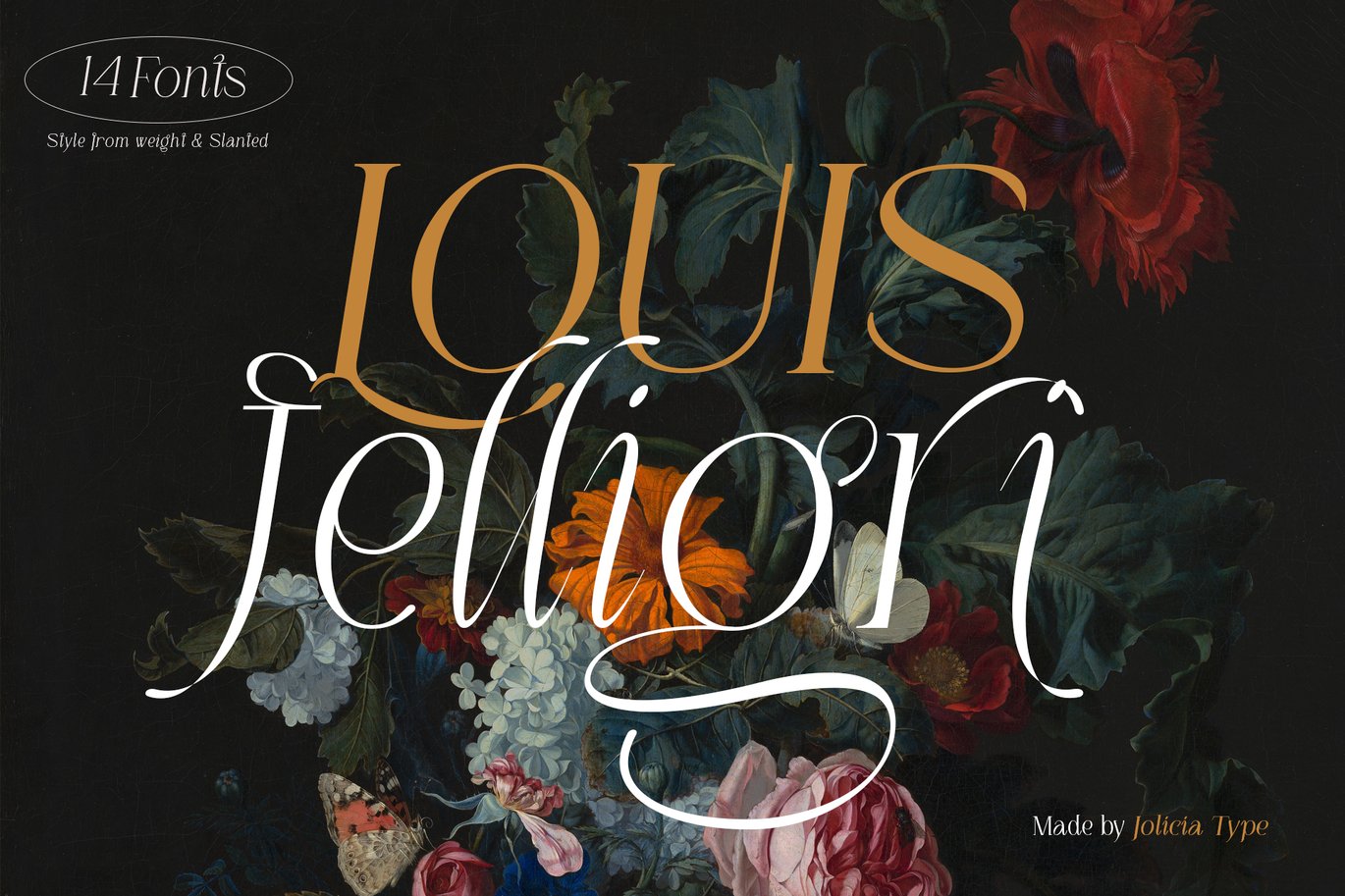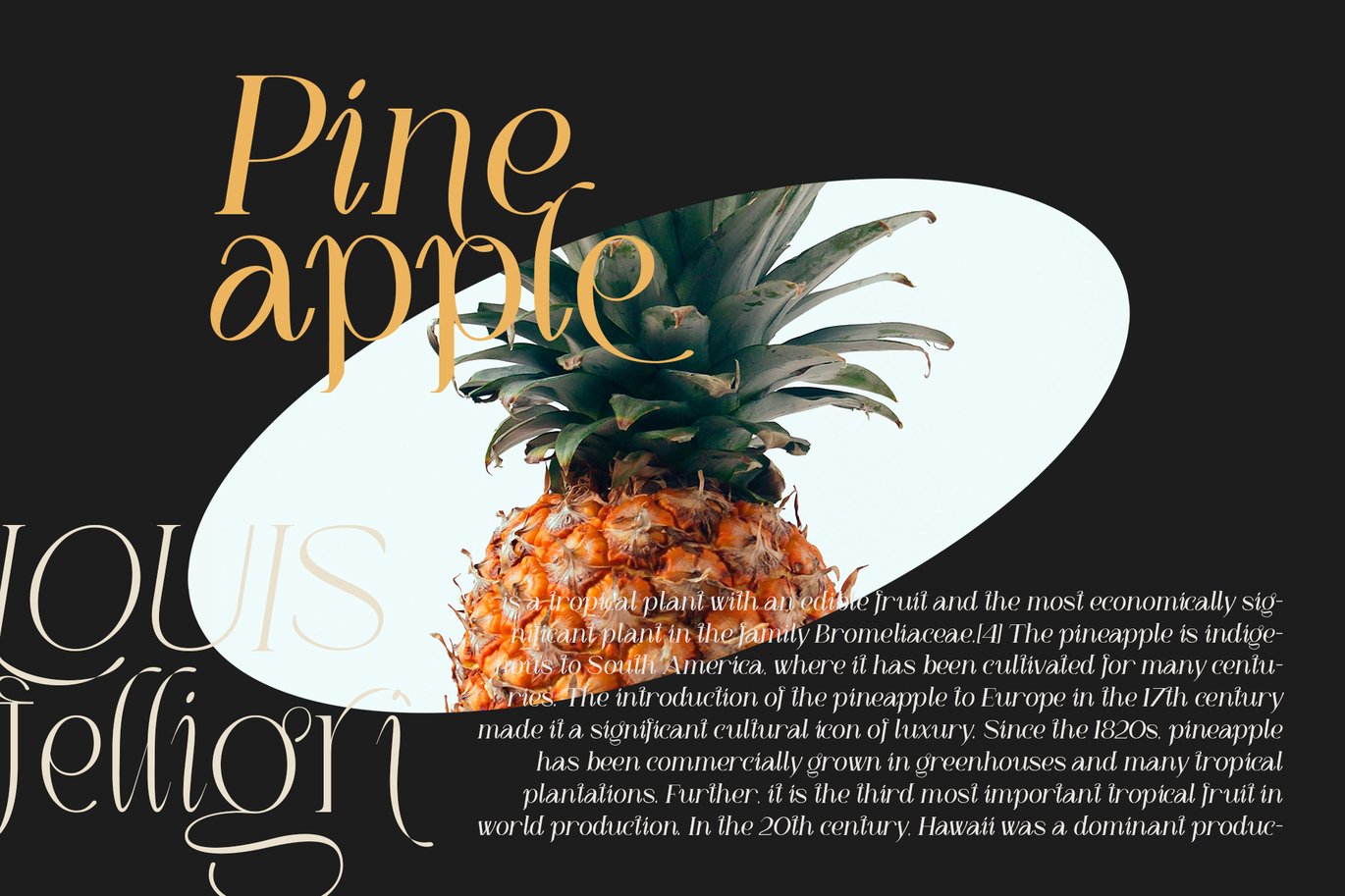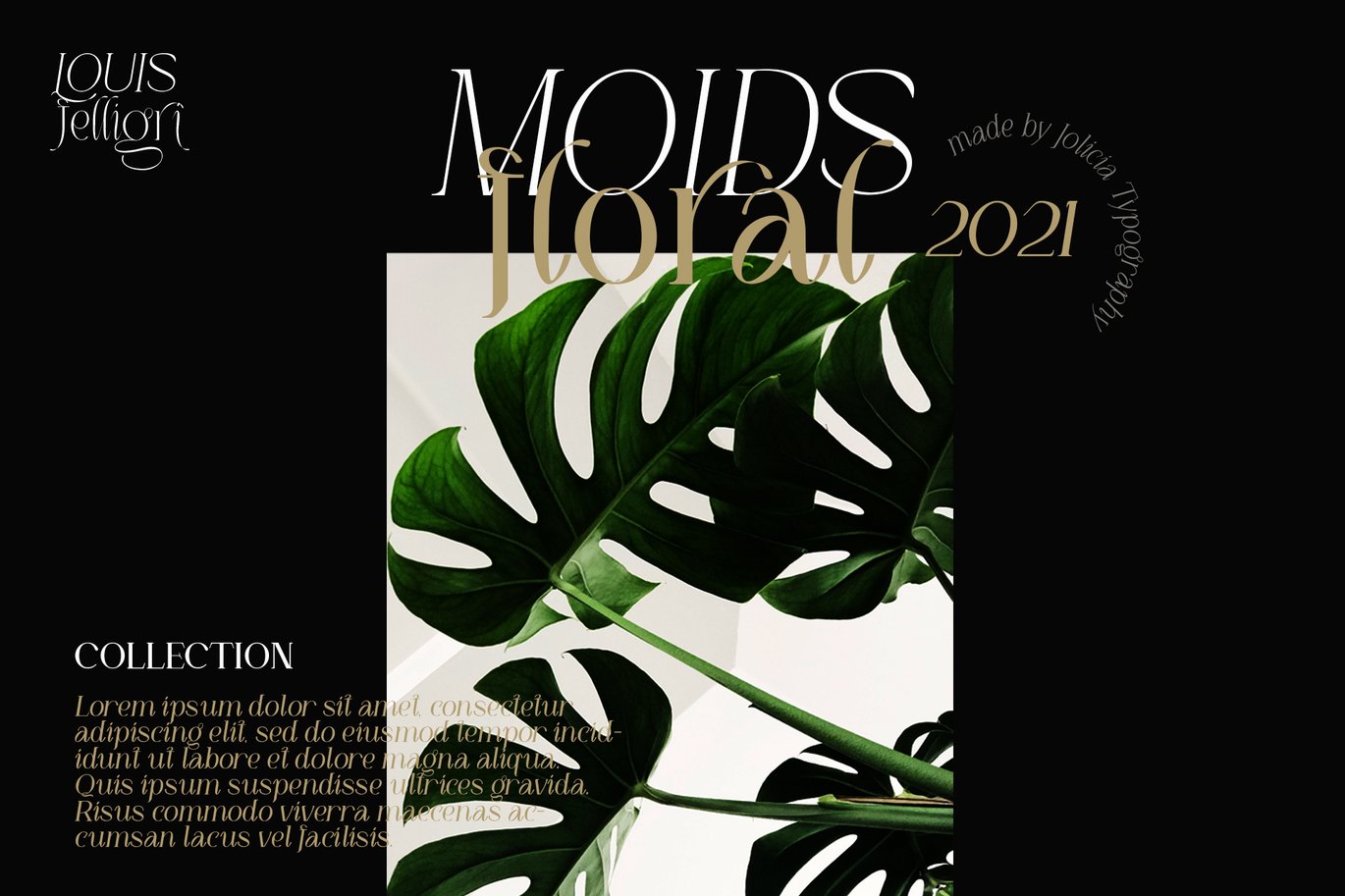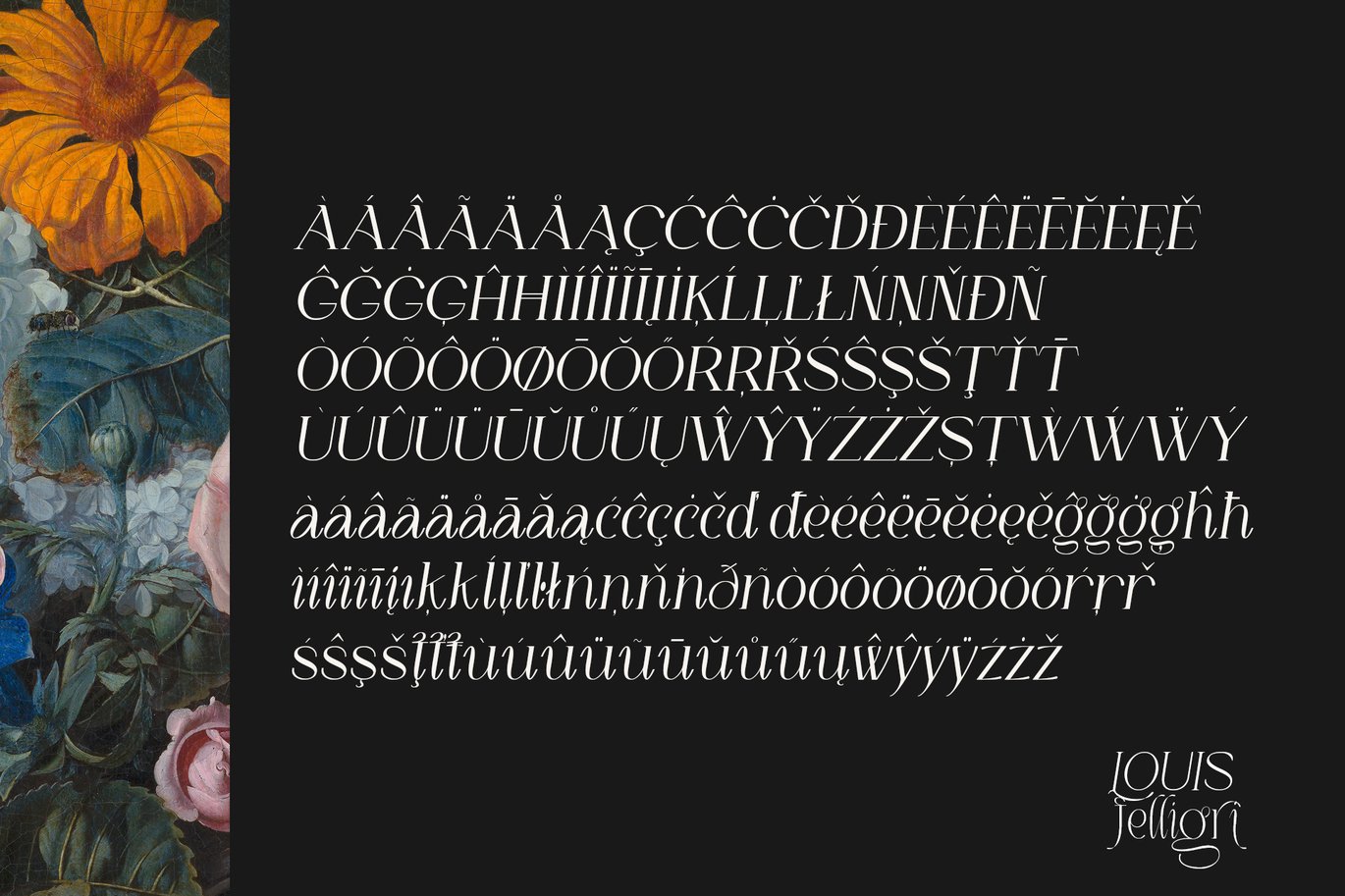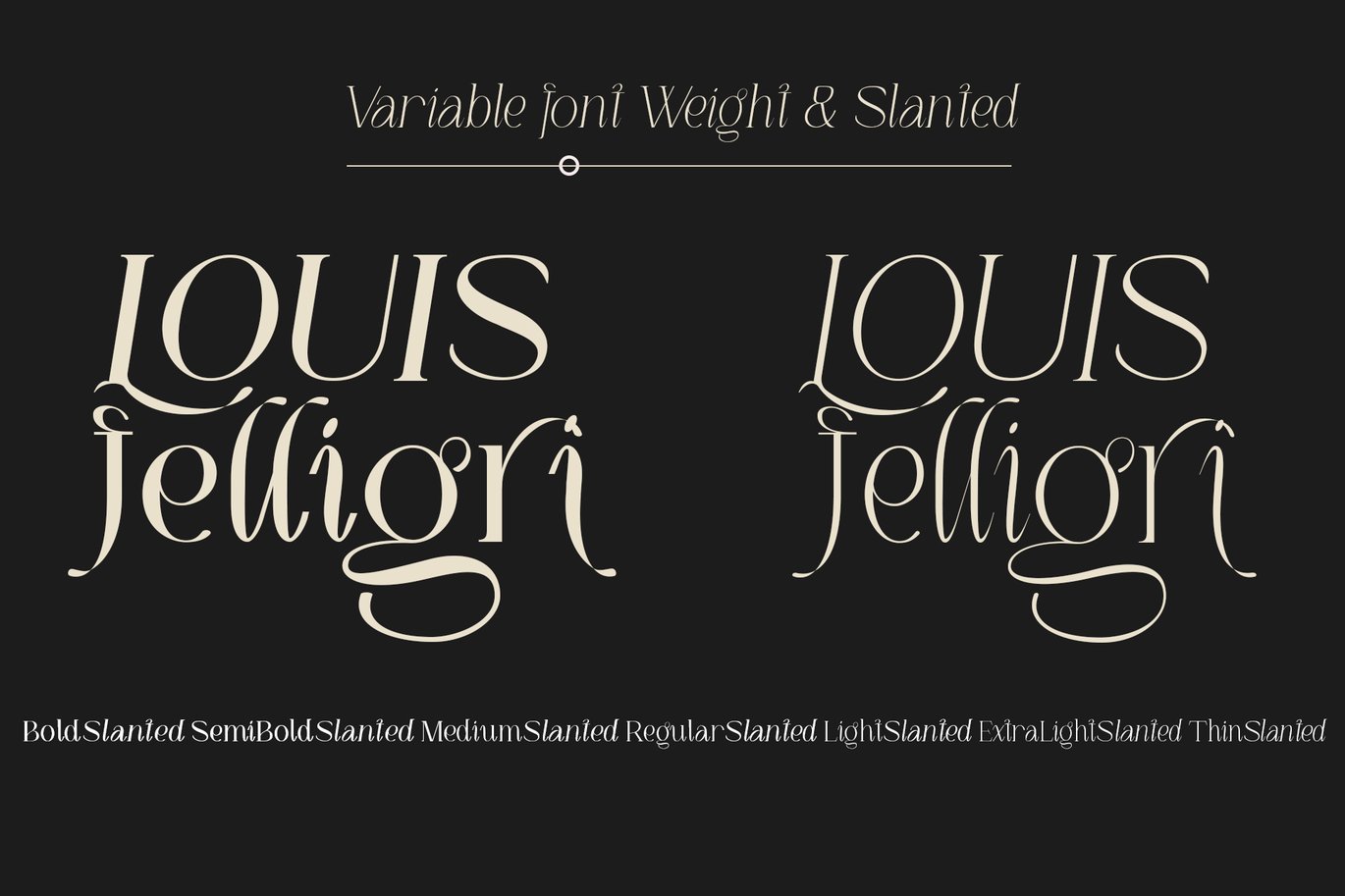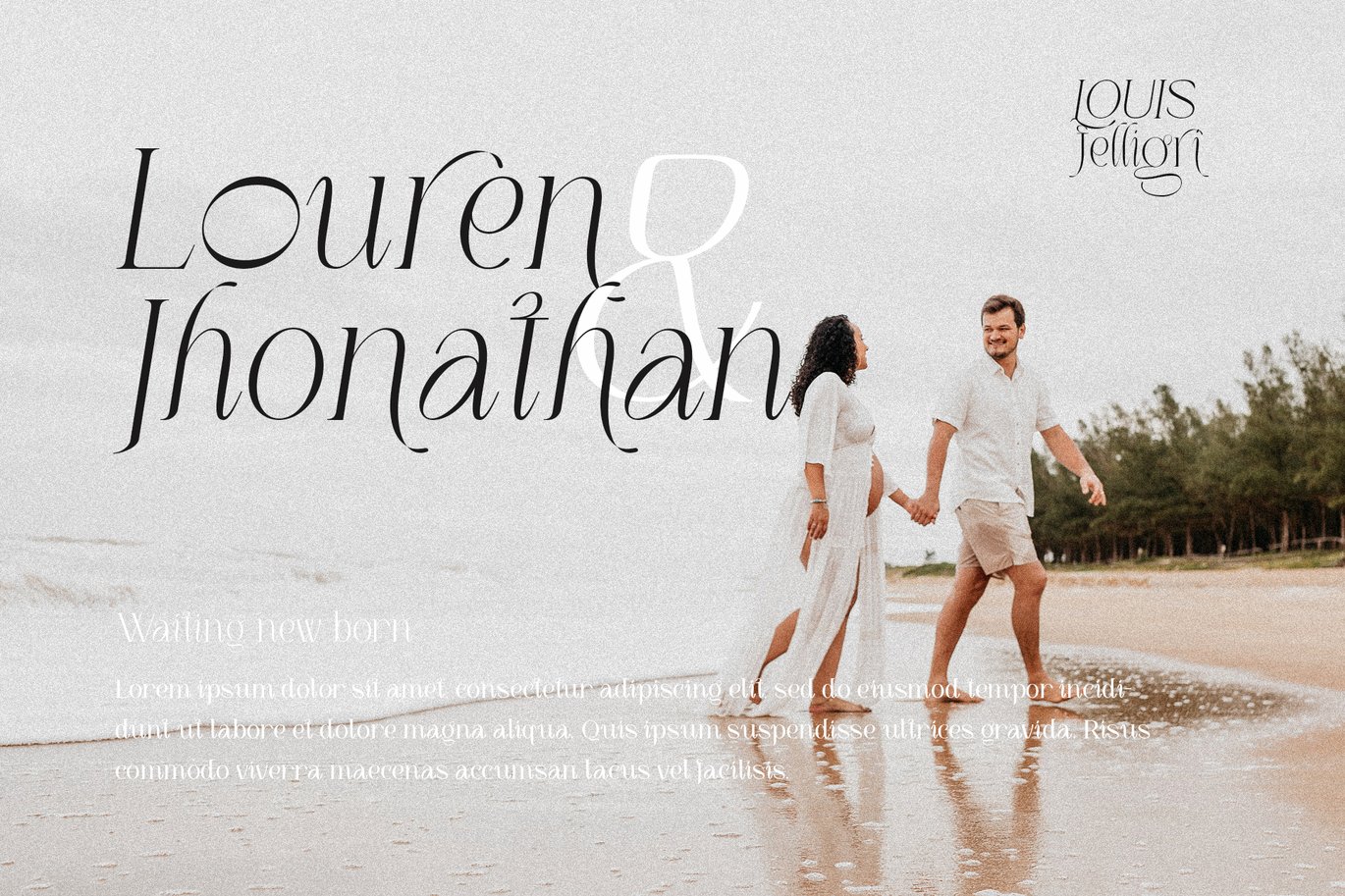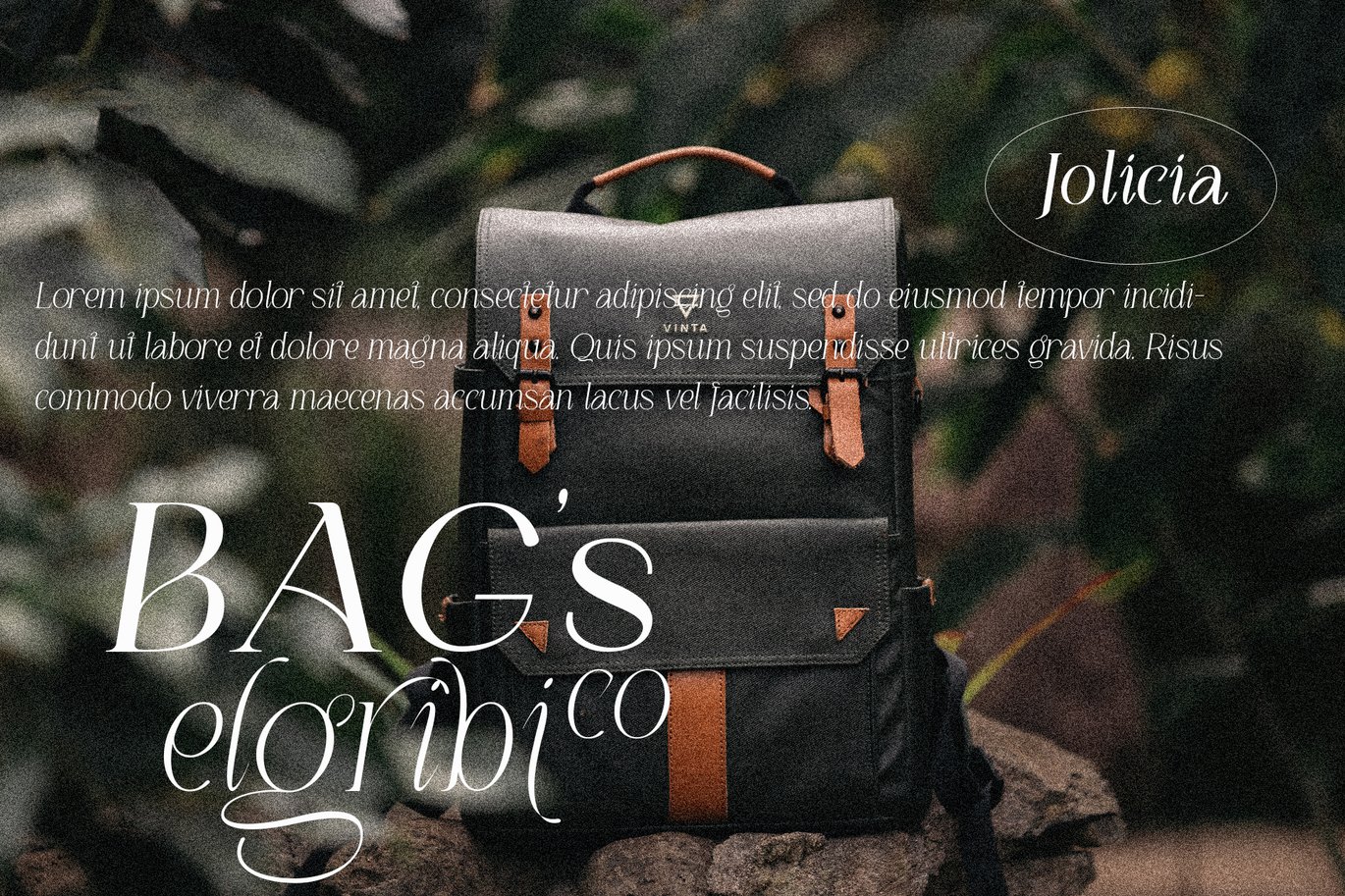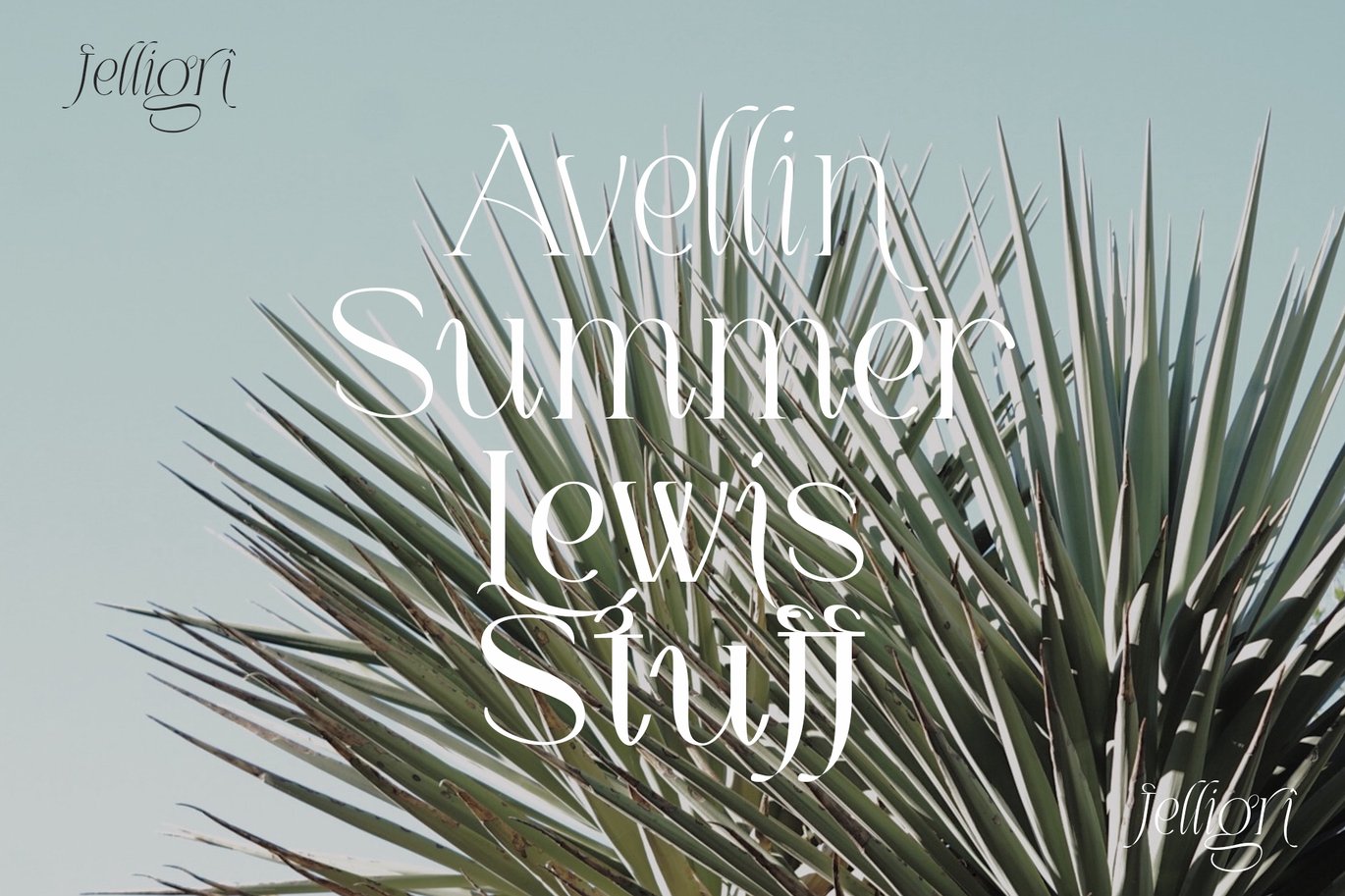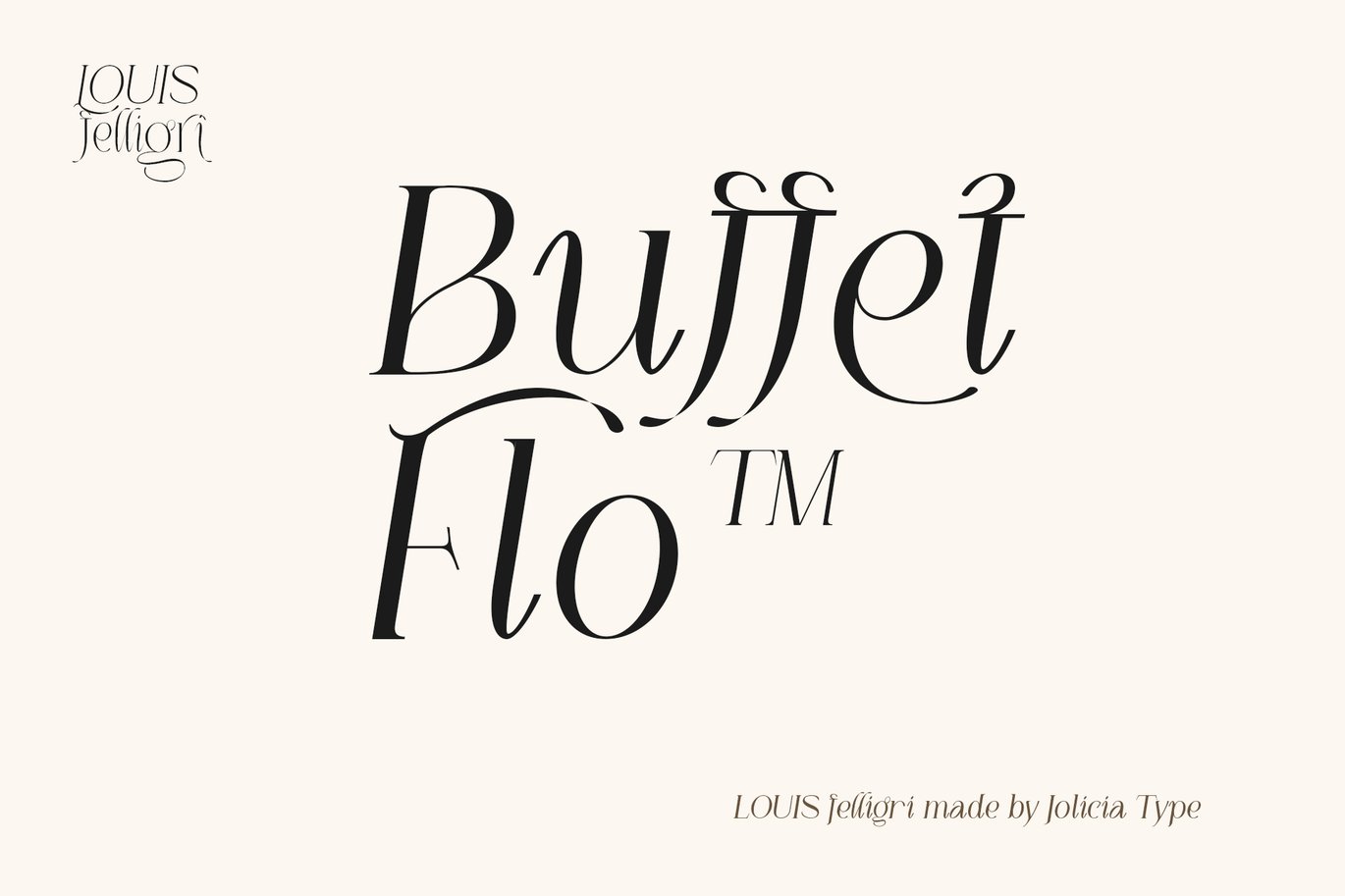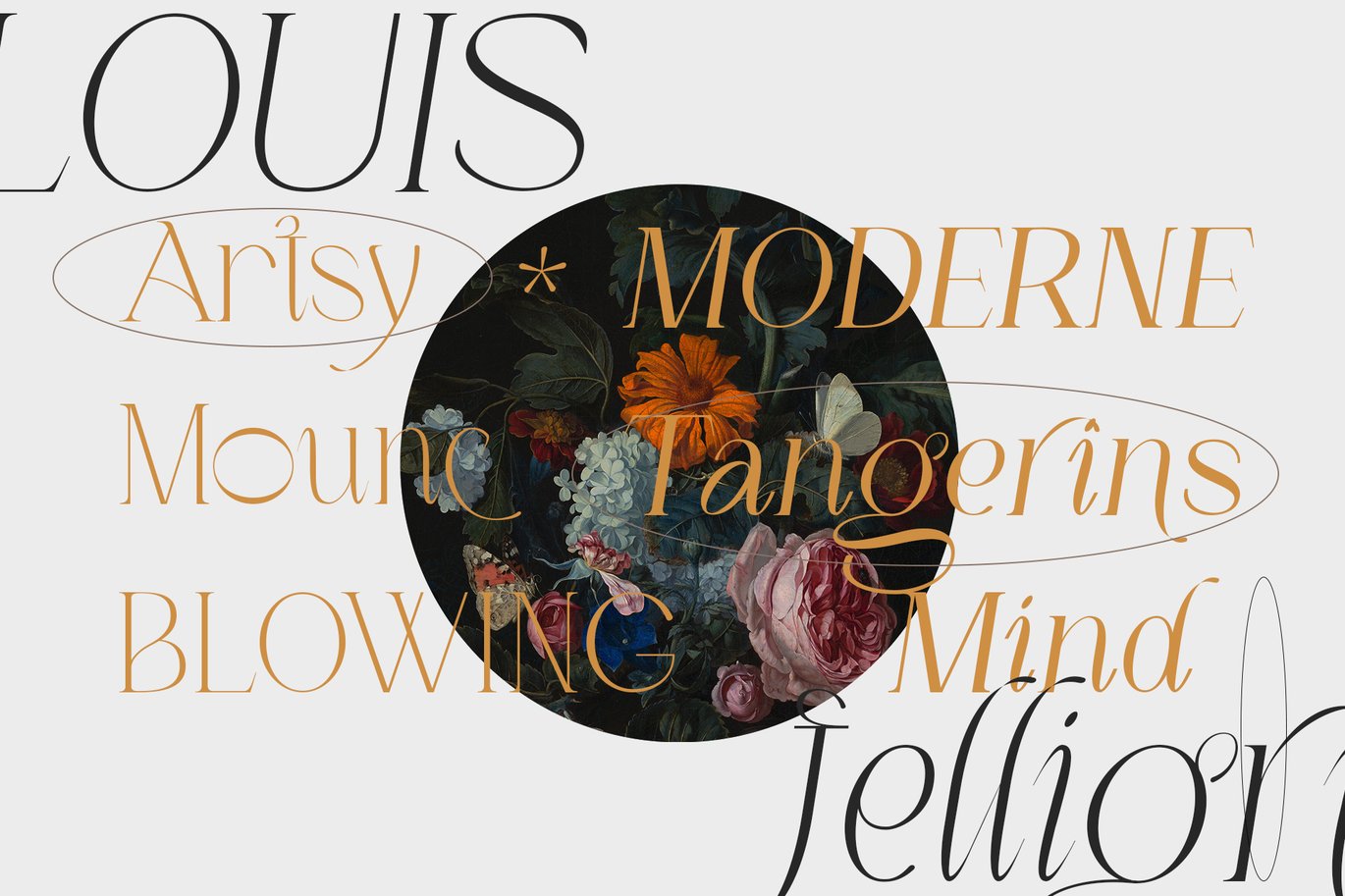
LOUIS felligri | Serif Display Font
LOUIS felligri is a modern display serif. This font is a variable typeface for weight By using the variable sliders in your design software you have a range of weight options in compatible software like Adobe Illustrator. Play around with individual letters to give your type a unique look. Included in this family are alternate characters to add even more styling options.
LOUIS felligri – Characters Set